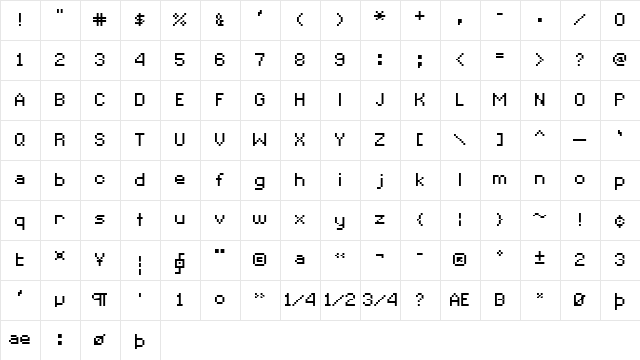
C&C Red Alert [INET] Regular
Design Context for C&C Red Alert [INET] Typeface
C&C Red Alert [INET] is a composed and adaptable typeface that performs quietly and consistently across a wide range of design contexts.